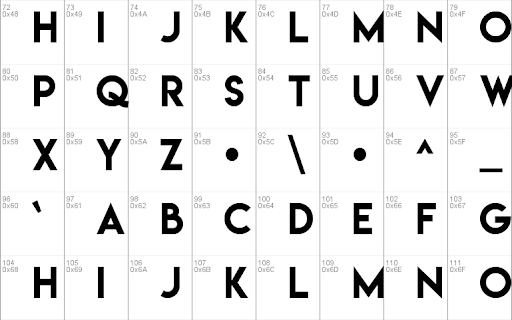
Lemon Milk Bold Font Copy And Paste
Lemonmilk Font - Free For Personal Commercial
Lemon/milk.otf ver 2.1 (donationware) celebrating its 2.5 million downloads, i've developed lemon/milk into 3.0 version.
Lemon milk bold font copy and paste. Just have a seem at the letter map pix we fasten along with this put up. Get lemon milk with lowercases, covering extended latin, cyrillic, and greek. Alt0167 will save time by.
Moreover, i have modified some letters such as b, q, and s and some issues have been fixed. Harry potter font generator is a free tool to convert your old boring text to harry potter font style and many. It features an incredibly modern style, however it still keeping a friendly and lovely feel.
We are offering this basic font that looks like argopuro font right here. Available in bold, italic, uppercase, lowercase, regular and thin. Get lemon milk with lowercases, covering extended latin, cyrillic, and greek.
Celebrating its 2.5 million downloads, i've developed lemon/milk into 3.0 version. Get lemon milk with lowercases, covering extended latin, cyrillic, and greek. Moreover, i have modified some letters such as b, q, and s and some issues have been fixed.
Lemon milk pro is available now. Lemon milk font is a strong sans serif typeface. Lemon/milk.otf ver 3.0 (donationware) in this version, lemon/milk comes with the family;
One who will analyze this free font household will guarantee the expertise and allegiances of the designers working on it. Lemon milk pro is available now. Moreover, it now has 18 fonts + 2 variable fonts ranging from thin to heavy.
Moreover, i have modified some letters such as b, q, and s and some issues have been fixed. Get lemon milk with lowercases, covering extended latin, cyrillic, and greek. Weather symbol is a copy and paste text symbol that can be used in any desktop, web, or mobile applications.
P o t alt0164 e alt0165. Moreover, it now has 18 fonts + 2 variable fonts ranging from thin to heavy. To have thought about the precision of the textual behaviour throughout the documents.
This font will suitable for display and headlines purposes, for it has sans serif corners. It can be used as a copy and paste. Fortunately, in this version, lemon/milk comes with the family!
Lemon milk font feels equally classy and charming. Lemon milk font is a charismatic and stylish sans serif typeface. Fortunately, in this version, lemon/milk comes with the family!